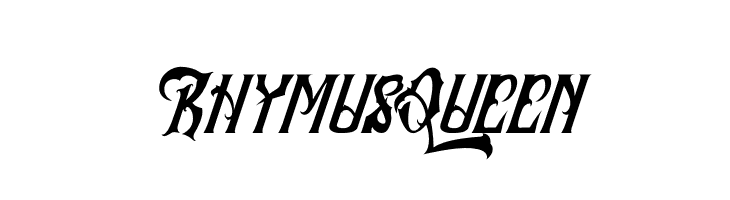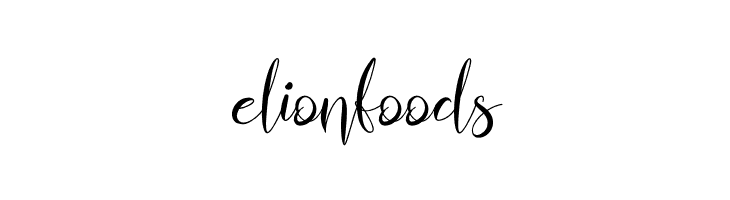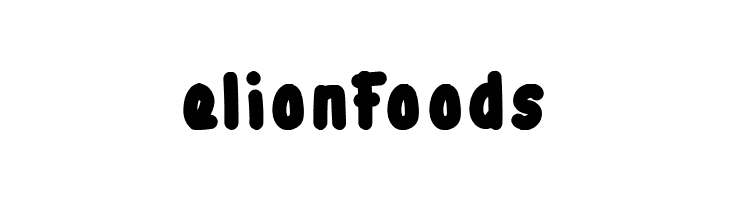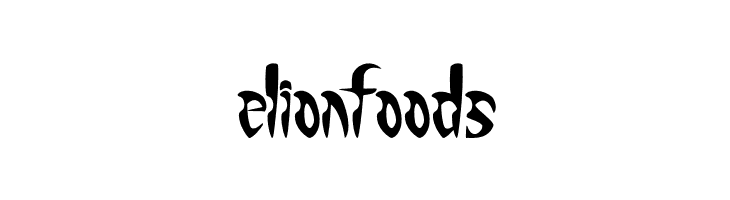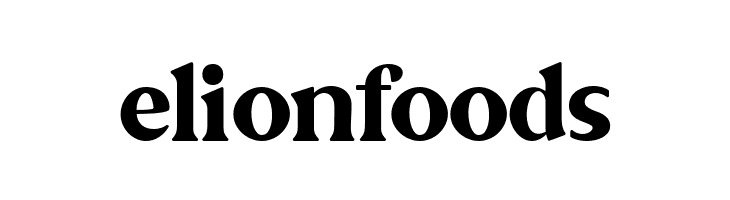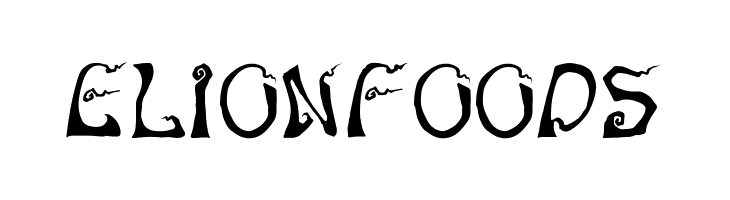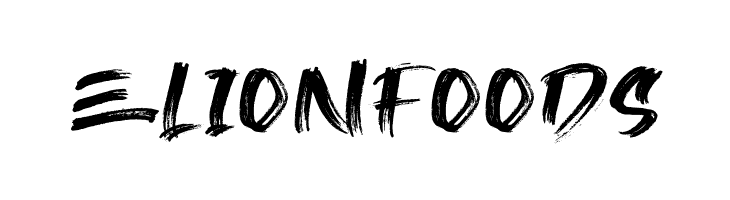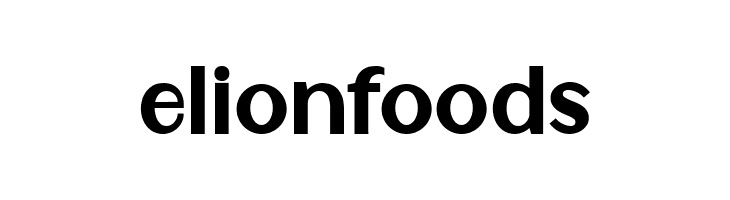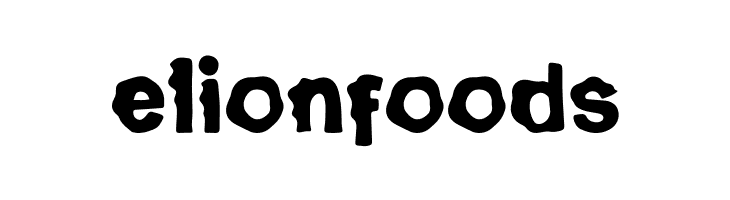
An elegant, cursive handwritten font with flowing, decorative strokes.
A bold, playful font with rounded, thick strokes and a hand-drawn feel.
A bold, jagged font with sharp edges and dynamic strokes, ideal for dramatic designs.
A bold, high-contrast serif font with elegant curves and strong presence.
A whimsical, vine-like decorative font with playful and eerie characteristics.
A bold, dynamic brush script font with expressive strokes and artistic flair.
A modern sans-serif font with clean lines and balanced proportions.
A bold, wavy font with a spooky, hand-drawn appearance.
A bold, gothic-style font with intricate details and sharp edges.
A decorative icon font of world flags in a minimalist, monochrome style.